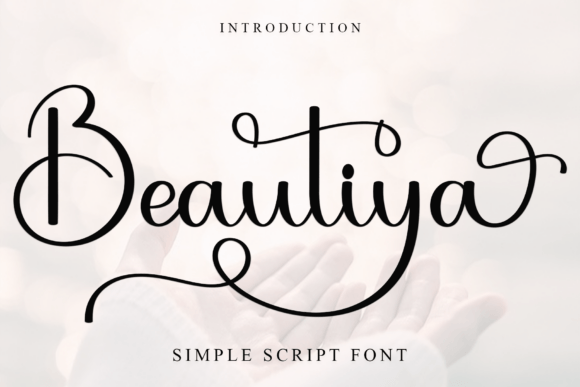
The Perfect Blend of Beauty and Creativity
Have you ever been stuck on a design project, desperately searching for the perfect font to bring your vision to life? The struggle is real, but fear not, dear creatives! Today, I’m excited to introduce you to Beautiya Font, a stunning and unique font that’s about to become your new best friend.
This beautiful font is designed to add a touch of elegance and sophistication to your designs, crafts, and creative projects. With its soft strokes and distinctive character, Beautiya Font is the perfect addition to any artistic field. Whether you’re a graphic designer, a crafter, or a creative entrepreneur, this natural font style is sure to enhance your work and make it stand out from the crowd.
Beautiya Font Key Features
- Unique Characteristics: Unique calligraphic flair and elegant lines, making it ideal for creative and artistic projects
Designer Review: Beautiya Font
Overall, I have mixed feelings about Beautiya Font. While it has some great qualities, it also falls short in a few areas.
- Creatively designed, giving it a unique touch
- Versatile, suitable for use in logos, headers, and body text
- Includes a wide range of weights and styles
- Excellent for creative, artistic projects or designs
- May not be suitable for formal, professional projects due to its creative, unconventional design
- Some characters or glyphs may not be as refined as others, potentially causing readability issues
- May not be easily legible at smaller font sizes or in low-resolution environments
Beautiya Font is an interesting choice for designers who want to add a unique touch to their projects. While it excels in creativity and versatility, its limitations may make it less suitable for formal or professional projects. With careful selection and use, Beautiya Font can be a great addition to a designer’s toolkit.
The Beautiya Font is a beautiful, elegant script font that is perfect for:
- Personalized gifts and cards
- Editorial and creative content
- Use it sparingly to add elegance and sophistication. Alternatives to Beautiya Font for Designers
Playfair Display is a luxurious, high-end serif font perfect for adding elegance and sophistication to your designs. It is ideal for use in titles, headings, and other areas where you want to draw attention.
Compared to Beautiya Font, Playfair Display has a more refined and classic feel, making it suitable for high-end branding, luxury products, and premium services. While Beautiya Font is more versatile, Playfair Display is more formal and elegant.
Great Vibes is a beautiful, elegant script font that is perfect for creating a sense of sophistication and refinement in your designs. It is ideal for use in titles, headings, and other areas where you want to add a touch of elegance.
Compared to Beautiya Font, Great Vibes has a more fluid and organic feel, making it suitable for creative projects, invitations, and other areas where you want to add a personal touch. While Beautiya Font is more versatile, Great Vibes is more suited for formal and elegant designs.
Carolyna Pro is a modern, elegant script font that is perfect for creating a sense of sophistication and refinement in your designs. It is ideal for use in titles, headings, and other areas where you want to add a touch of elegance.
Compared to Beautiya Font, Carolyna Pro has a more modern and sleek feel, making it suitable for high-end branding, luxury products, and premium services. While Beautiya Font is more versatile, Carolyna Pro is more suited for formal and elegant designs.